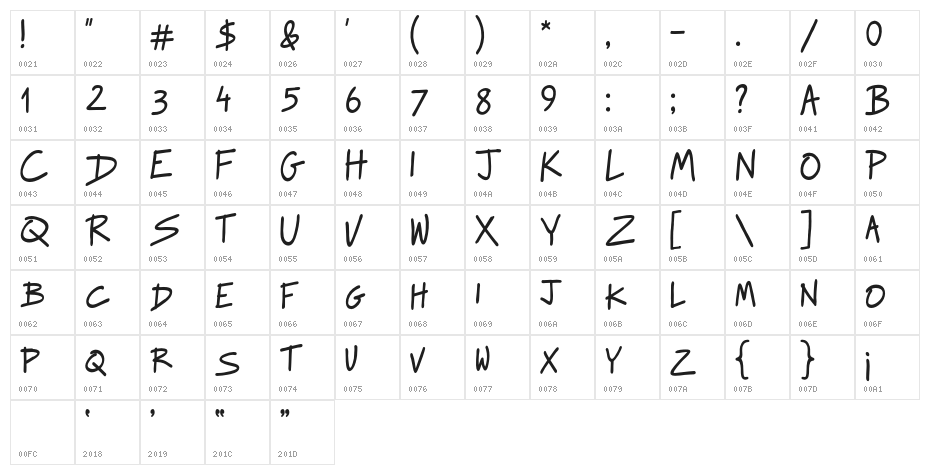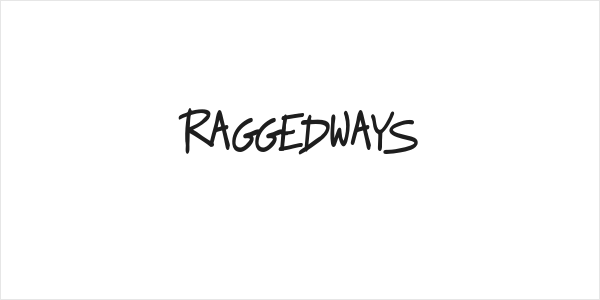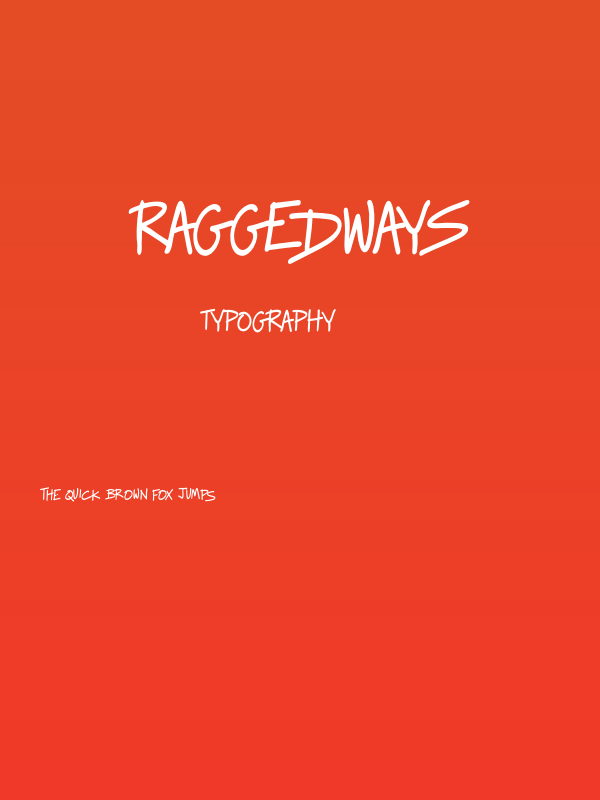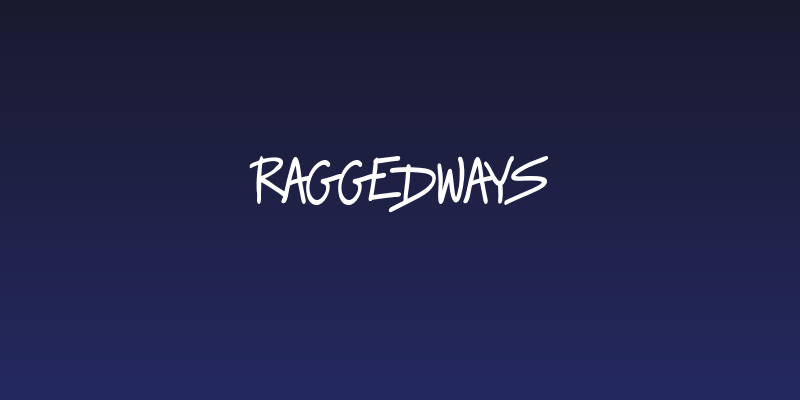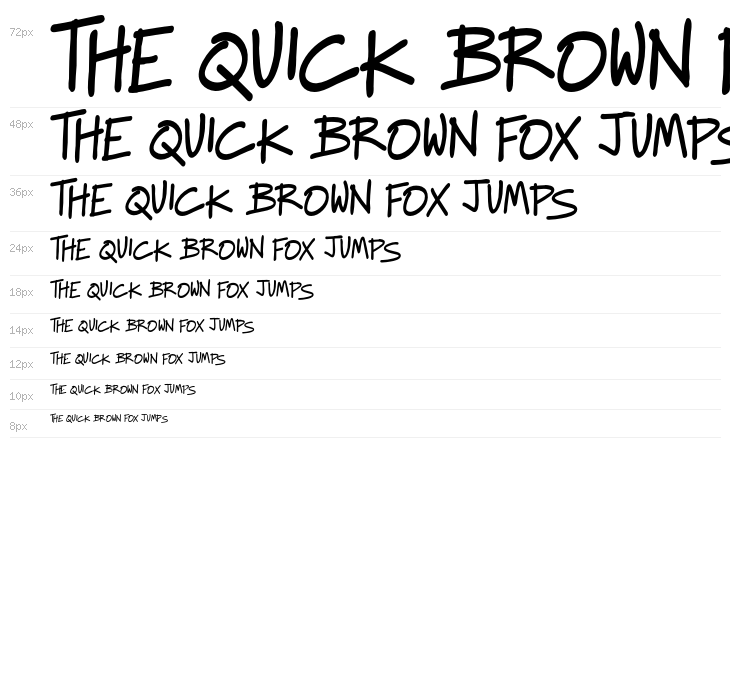
Raggedways Font
Raggedways Description
This font exudes a casual and playful handwritten style, characterized by its irregular strokes and slightly tilted letters. The uppercase and lowercase letters maintain a consistent flow, giving it an informal yet cohesive appearance. The numbers and special characters follow the same handwritten aesthetic, adding to its charm. The strokes are moderately thick, providing a balanced contrast that enhances readability while retaining a personal touch. This font is perfect for projects that require a friendly and approachable feel, such as greeting cards, invitations, or personal branding.
| Use Case | Headlines, Informal text, Personal projects |
| Proposed Projects | Ideal for greeting cards, invitations, personal branding, and informal communications. |